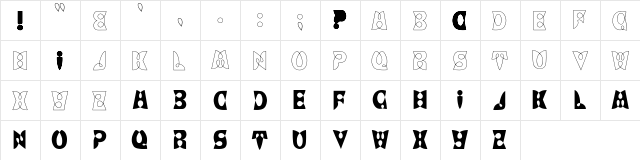
LoopDeLoop Regular Font Preview
LoopDeLoop Regular
LoopDeLoop Regular Font Details
Design Context for LoopDeLoop Typeface
LoopDeLoop is a composed and adaptable typeface that performs quietly and consistently across a wide range of design contexts.